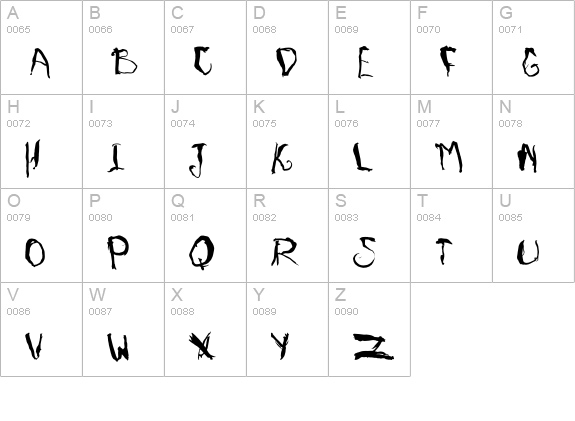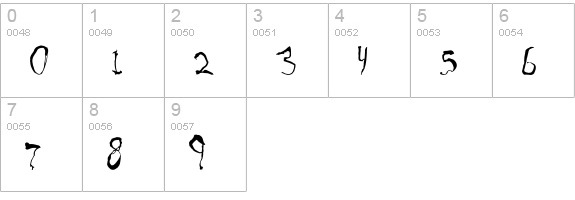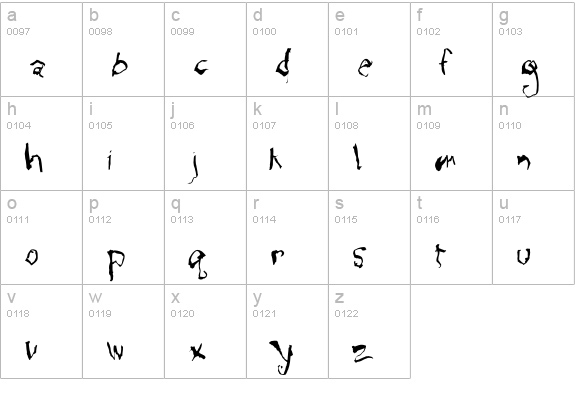
SloppyJoe Font Details
Introducing SloppyJoe, a captivating and playful font that will add a touch of whimsy to any design project. With its unique and irregular letterforms, SloppyJoe exudes a sense of carefree charm, making it perfect for anything from children's books to vibrant logos. This delightful font is not only visually appealing but also incredibly versatile. Whether you're looking to create eye-catching headlines or add a fun twist to your social media graphics, SloppyJoe will effortlessly bring your ideas to life. One of the best things about SloppyJoe is that it is completely free! That's right – you can now enjoy this fantastic font without any cost. Simply head over to FontsMarket.com, and you'll find SloppyJoe readily available for download. So why wait? Embrace the free-spirited nature of SloppyJoe and let your creativity soar. Whether you're a seasoned designer or a novice enthusiast, this font is sure to inspire and delight. Download SloppyJoe today and discover the joy of freely expressing your imagination.